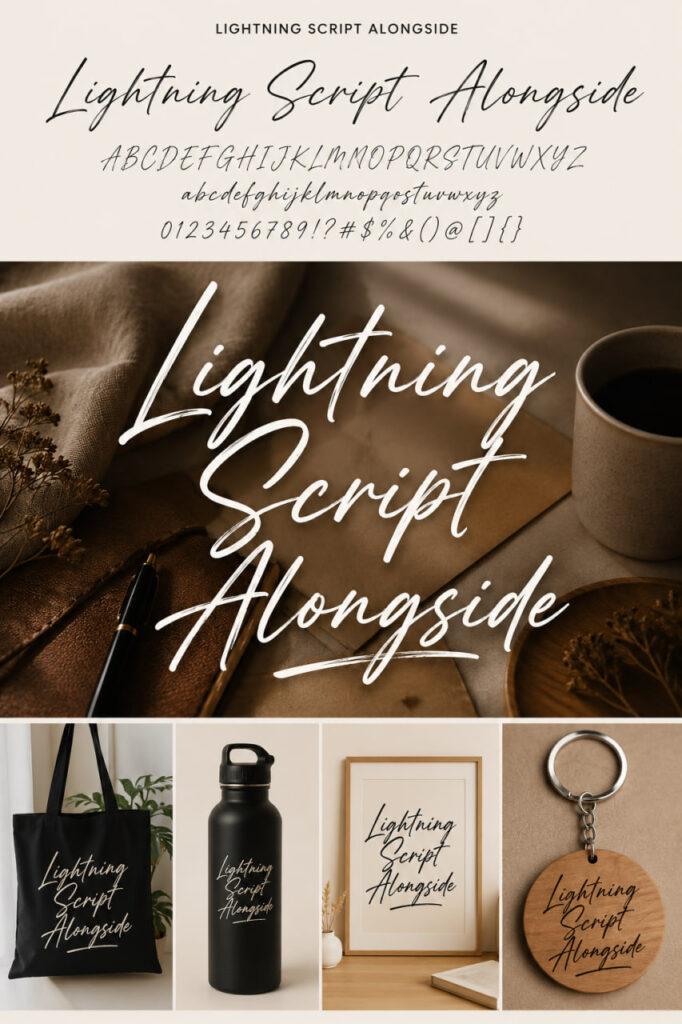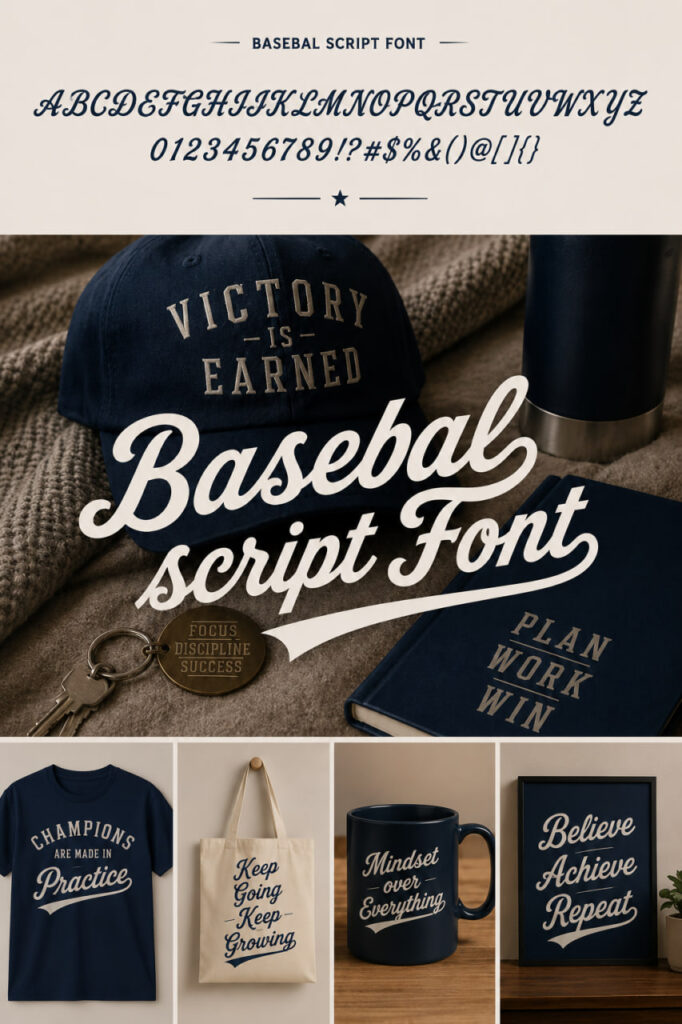
9 unique adobe script fonts for modern projects
Finding the perfect adobe script fonts is the fastest way to turn a standard layout into a high-end, custom masterpiece. Whether you’re working on edgy streetwear branding, elegant wedding invitations, or modern digital ads, these typefaces integrate seamlessly into your creative workflow to add instant personality and flow. Here are 9 unique styles currently elevating my projects and helping me push the boundaries of modern typography.
Lightning Script Alongside
As a designer, I’m always on the hunt for that perfect “visual tension” in my layouts. While I usually lean on classic serif fonts to provide structure, elegance, and a sense of authority to a page, a project often needs a bit of soul to keep it from feeling too rigid. That’s exactly where Lightning Script comes in.
This font is a stunning work of art—a beautiful handwritten typeface that I love using to add a genuine, personal touch to my digital designs. In my experience, pairing the fluid, energetic strokes of Lightning Script with the clean lines of traditional serif fonts creates a high-end look that’s perfect for branding materials, wedding invitations, and standout business cards. It’s a fantastic freebie to keep in your toolkit when you want to take a composition to the next level.
Baseball Script Fonts
Whenever I want to inject a bit of “old-school cool” into a project, I find myself coming back to the Baseball typeface. As a designer, I’m constantly hunting for script fonts that manage to feel nostalgic without looking dated, and this one hits that vintage sweet spot perfectly. It’s resplendent and versatile, making it my top pick for everything from sophisticated logos to formal invitations and labels. There’s just something about its flow that breathes life into magazine layouts and book covers, giving them a timeless, “classic novel” feel.
I’ve used this font across various mediums—packaging, fashion branding, and even makeup stationery—and it never fails to bring that tangible, old-world charm to the page. What makes it a standout among other script fonts in my toolkit is how functional it is; with Open Type features and PUA Unicode support, I can easily access all those extra characters in Adobe Illustrator or Photoshop. Whether you’re a seasoned pro or just starting out, experimenting with “Baseball” is a fantastic way to add an exquisite, vintage soul to your creative endeavors.
What I love about incorporating this script alongside my go-to serif fonts is how it handles the “heavy lifting” of personality. Whether I’m working on high-end packaging, fashion branding, or stationery, “Baseball” brings an old-world charm that feels tangible. It’s also incredibly user-friendly for fellow designers; with PUA Unicode support and Open Type features, it integrates perfectly with Adobe Illustrator and Photoshop. If you are looking to elevate your design toolkit, experimenting with the flow of this script against the structure of traditional serif fonts is a surefire way to create an exquisite, professional result.
Mahogany script Font
In my journey as a designer, I’ve realized that the right typography can turn a simple layout into a piece of visual art. Lately, I’ve been experimenting with the Mahogany Wedding Font, and it has quickly become one of my favorite script fonts for projects that require a touch of luxury. It perfectly captures the grace of traditional handwritten calligraphy but adds a modern twist that keeps it feeling fresh and relevant for today’s aesthetic.
What I love about using this specific typeface is the sheer level of detail—the flowing strokes and elegant curves are just stunning. It’s packed with stylistic alternates and ligatures, which is a huge plus for me because it allows for customized lettering that feels truly unique
Digital Script Font
As a designer, I’m always looking for those special creative products that can transform a standard layout into something memorable. Lately, I’ve been experimenting with the Digital Script Font, and I have to say, it really offers an extraordinary experience. When I’m scrolling through my collection of script fonts, this one stands out because it strikes that perfect balance between modern “latest style” letters and the authentic warmth of tasteful handwriting.
I’ve found it to be incredibly versatile for my personal projects and client work alike. Whether I’m working on a bold wall display, elegant wedding invitations, or a social media logo, the flow of this typeface adds a layer of personality that’s hard to replicate. It’s also a fantastic choice for product packaging, photography watermarks, and stationery. If you’re looking to expand your library of script fonts with something that feels both fresh and artisanal, the Digital Script font is a brilliant tool to help you bring a creative, handcrafted touch to your next design.
Roflag Stencil script Font
When I’m digging through my library of script fonts, I’m usually looking for something that breaks the rules, and Roflag Stencil does exactly that. It’s such a unique find because it’s a stencil font designed without those typical closed loops on the characters. This makes it an absolute dream for anyone using cutter machines—no more losing the centers of your letters!